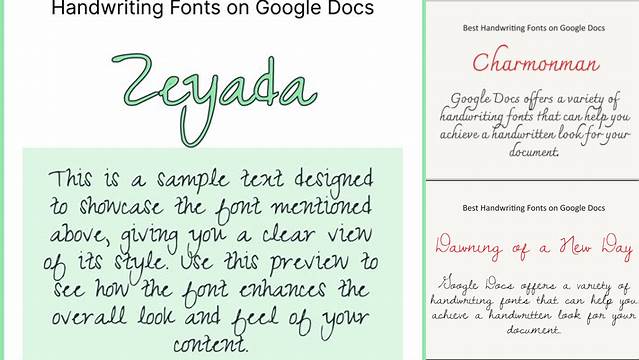
Messy Fonts In Google Docs: A Style Guide
Introduction to Handwriting Fonts
Handwriting fonts can add a personal and authentic touch to your documents, setting them apart from the standard, formal fonts we often see. Using handwriting fonts in Google Docs is a fantastic way to infuse character into your work, whether you're drafting a friendly letter, designing a creative invitation, or aiming for a unique aesthetic in your project. These fonts mimic the irregularities and quirks of human handwriting, making your text feel more approachable and less sterile. The charm of messy handwriting fonts lies in their imperfections; they remind us of handwritten notes and personal correspondence, bringing a sense of warmth and nostalgia to the digital realm. Guys, think about how a simple font change can transform your document from looking like a generic template to something that feels genuinely crafted and personal. The world of typography is vast, but handwriting fonts hold a special place for those seeking to bridge the gap between digital precision and human touch. Finding the right messy handwriting font for Google Docs can significantly enhance the visual appeal of your document, making it more engaging and memorable for your readers. So, if you’re looking to spice up your Google Docs and add a personal flair, exploring handwriting fonts is definitely the way to go.
Why Use Messy Handwriting Fonts?
Why should you even bother with messy handwriting fonts? Well, they bring a certain authenticity and personality that standard fonts just can't match. Imagine you're sending out invitations for a casual get-together; a formal font might make it feel too stiff, but a messy handwriting font gives off a relaxed, friendly vibe, making your guests feel more welcome. Messy fonts in Google Docs can make your documents stand out. In a world saturated with Times New Roman and Arial, a unique font can grab attention and leave a lasting impression. Think about it: how many beautifully handwritten letters have you cherished over the years? These fonts try to capture that same emotional connection. Choosing the right font for Google Docs can set the tone for your entire message. A messy, playful font can be perfect for informal content like blog posts or personal notes, while a slightly more refined handwriting font might work well for professional documents where you still want to add a touch of personality. Plus, let’s be honest, sometimes a little imperfection makes things more interesting. A perfectly clean, uniform font can feel a bit robotic, while a messy font has character – it’s like it has a story to tell. So, if you're looking to inject some life into your Google Docs, messy handwriting fonts are definitely worth exploring, guys. They’re a simple yet effective way to make your content more engaging and human.
Top Messy Handwriting Fonts for Google Docs
Alright, let’s get into some specific recommendations for top messy handwriting fonts for Google Docs. These fonts can really add character and a personal touch to your documents. One popular choice is Permanent Marker. This font, available on Google Fonts, perfectly captures the look of a bold marker scrawl, making it ideal for headings, titles, or any text you want to really stand out. It’s got a casual, almost rebellious vibe that can add some serious personality to your work. Another great option is Patrick Hand, also found on Google Fonts. Patrick Hand has a more rounded and friendly feel, resembling the handwriting you might see in a child’s notebook. It’s clear and legible, even with its handwritten style, making it a good choice for body text as well as headings. Guys, if you’re going for something a bit more whimsical, check out Amatic SC. While technically a condensed sans-serif font, it has a handwritten quality that makes it a fun choice for posters, invitations, or any project where you want a playful touch. It’s particularly effective for shorter pieces of text, like titles or captions. Another standout is Coming Soon. This font has a slightly messy, almost unfinished look that’s perfect for creating a sense of anticipation or informality. It’s great for blog headers or casual correspondence. For a more elegant but still handwritten feel, consider Indie Flower. This font has a flowing, cursive style that’s both readable and stylish. It’s a versatile choice that works well in a variety of contexts, from invitations to blog posts. Finally, don’t overlook ** школу**. This font captures the charm of Cyrillic handwriting, providing a unique and playful aesthetic for your documents. Remember, the best font for your project depends on the tone and style you’re aiming for, so experiment with these and other handwriting fonts to find the perfect fit for Google Docs.
Tips for Using Messy Handwriting Fonts Effectively
Okay, you've got your messy handwriting font installed in Google Docs, but how do you use it effectively? There are a few key things to keep in mind to make sure your font enhances your document rather than detracting from it. First and foremost, legibility is crucial. Choosing fonts that are too messy or stylized can make your text difficult to read, which defeats the whole purpose of writing. Look for fonts that have a clear, consistent letterform, even if they have a handwritten feel. This is especially important for body text; you want your readers to be able to easily follow your message without straining their eyes. Guys, consider using messy fonts sparingly. They can be fantastic for headings, titles, or short snippets of text where you want to make a statement, but using them for large blocks of body text can be overwhelming. A good rule of thumb is to pair a messy handwriting font with a cleaner, more traditional font for the main body of your document. This creates a nice contrast and keeps your text readable. Think of it like using a bold color as an accent rather than painting an entire room with it. Font size and spacing also play a big role. Messy fonts often benefit from a slightly larger font size and increased line spacing to improve readability. Experiment with different sizes and spacing options to find what looks best for your chosen font. Also, pay attention to the overall tone of your document. A very formal or professional document might not be the best place for a super messy font, while a casual invitation or blog post can really shine with a handwritten touch. Always consider your audience and the message you're trying to convey. Finally, test your document on different devices and screen sizes. Fonts can appear differently depending on the device, so it’s a good idea to check how your messy handwriting font looks on a phone, tablet, and computer to ensure it’s readable and visually appealing across the board.
In conclusion, messy handwriting fonts are a fantastic tool for adding a personal and authentic touch to your Google Docs. Whether you're aiming for a casual, friendly vibe or a unique, eye-catching design, these fonts can help you achieve your goals. We’ve explored why these fonts are so effective, how to find and install them, and some of the top choices available. We’ve also covered important tips for using them effectively, ensuring that your documents are both stylish and readable. Remember, the key is to balance personality with legibility, using messy fonts strategically to enhance your message without overwhelming your audience. Experimenting with different fonts and pairings is part of the fun, so don’t be afraid to try out different options until you find the perfect fit for your project. Guys, incorporating handwriting fonts into your Google Docs is a simple yet powerful way to make your work stand out. Whether it’s for a personal project, a creative endeavor, or just to add a bit of flair to your everyday documents, these fonts offer a unique way to express yourself. So go ahead, give them a try, and see how a little bit of messiness can make a big difference in your typography. Google Docs offers a versatile platform for creativity, and with the right messy handwriting font, you can truly make your documents your own. Embrace the imperfections, have fun with your font choices, and let your personality shine through your writing.